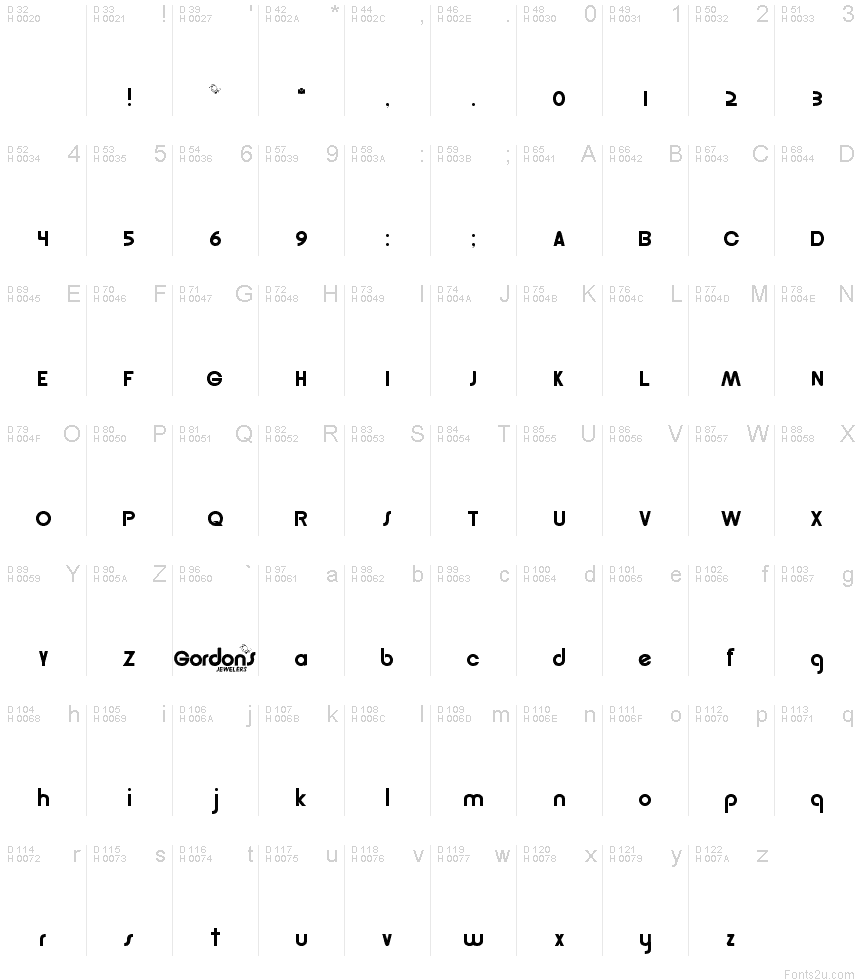
Gordon Regular
Gordon font by Francis X Mahoney is a free rounded sans serif typeface with an unmistakably chunky, bubble-like presence. Its wide, softly inflated forms and tight, energetic spacing give every word a friendly shove forward, while details like the extended vertical stroke add a playful quirk that’s hard to forget. Letters feel almost sculpted, as if pressed from thick ink or soft vinyl, creating a bold, tactile rhythm on the page.
Using Gordon, your titles and wordmarks snap into focus for logos, posters, packaging, stickers, social media graphics, and fun branding systems. This free font shines when set large, where its smooth curves and compact shapes can really punch through visual noise. Pair Gordon with a clean, neutral sans for small supporting text to keep the spotlight on its big, rounded personality.